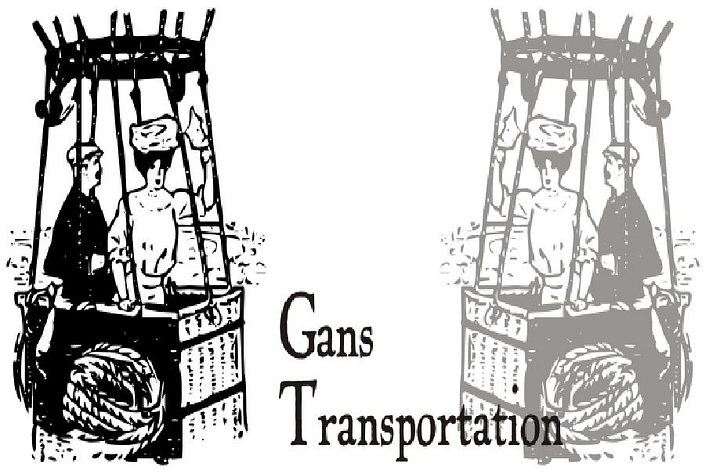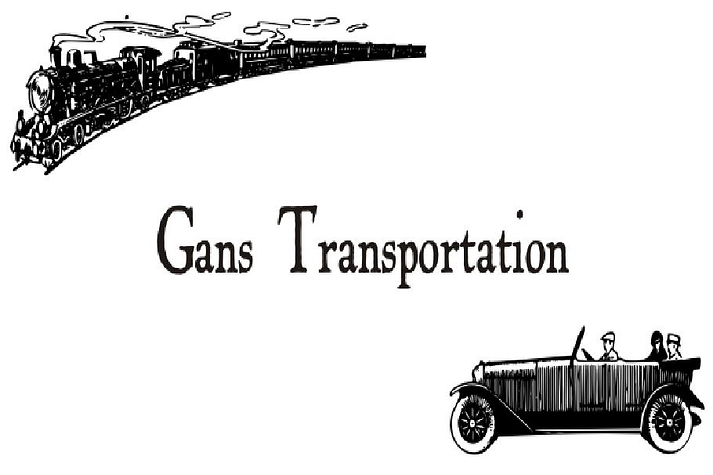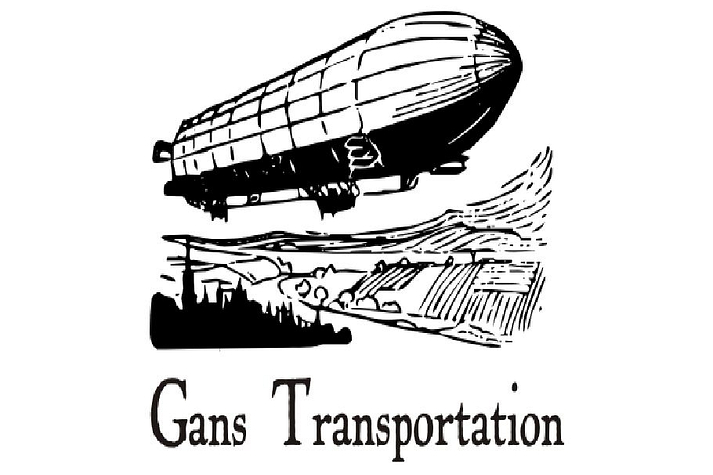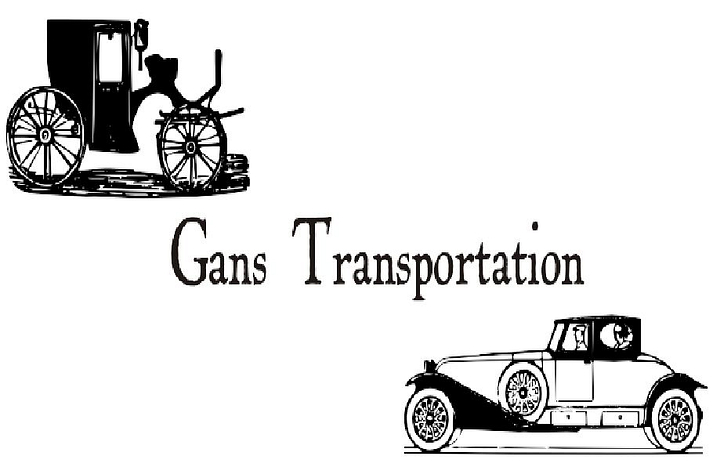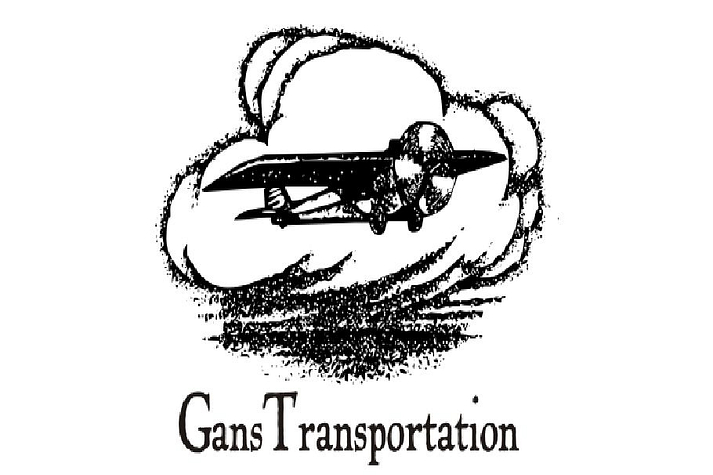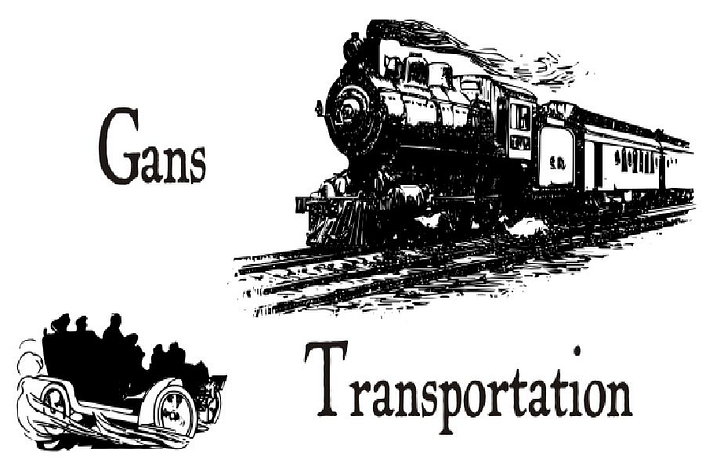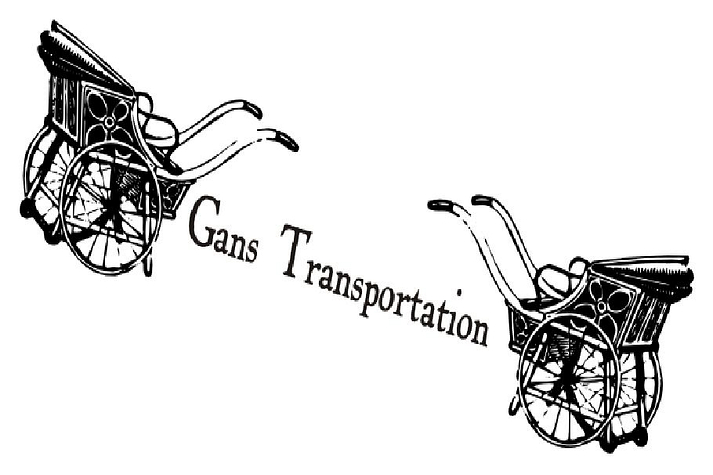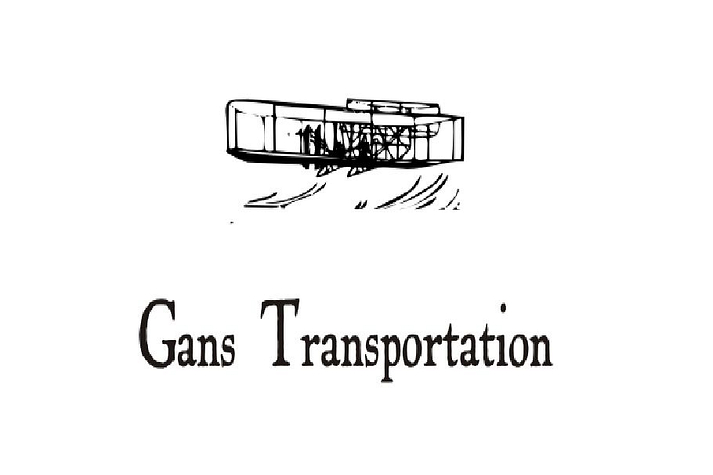
Gans Transportation
Designed by Paulo W, Gans Transportation is a dingbat font family published by Intellecta Design.
A sort of transport motiv dingbats from the 1930’s